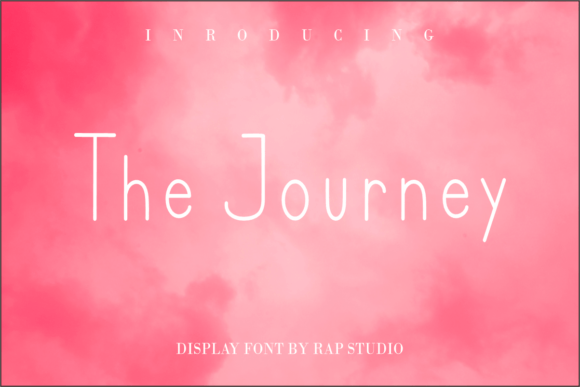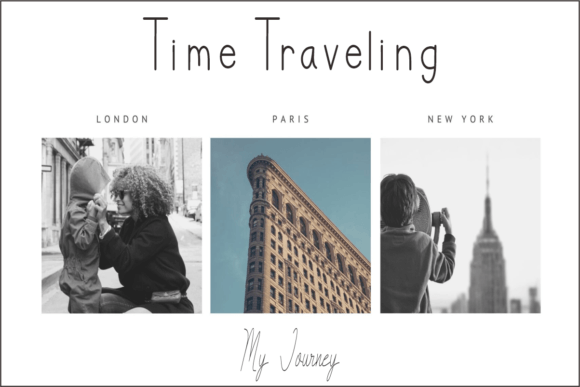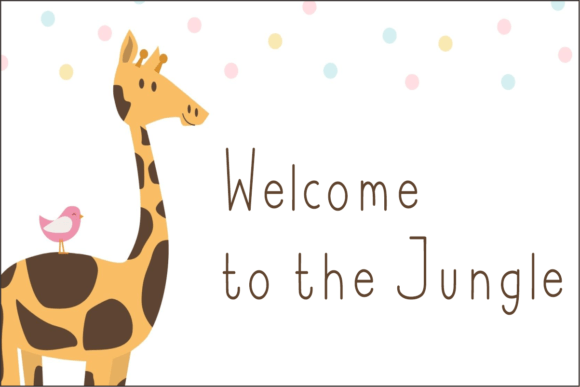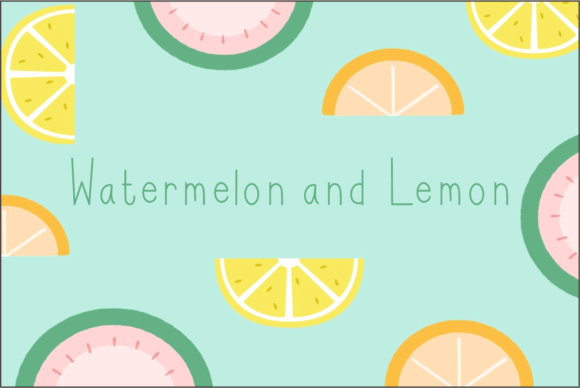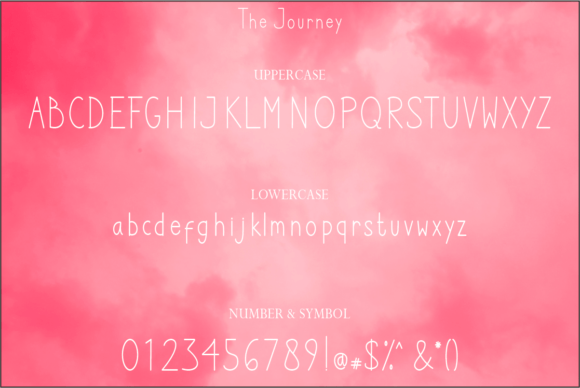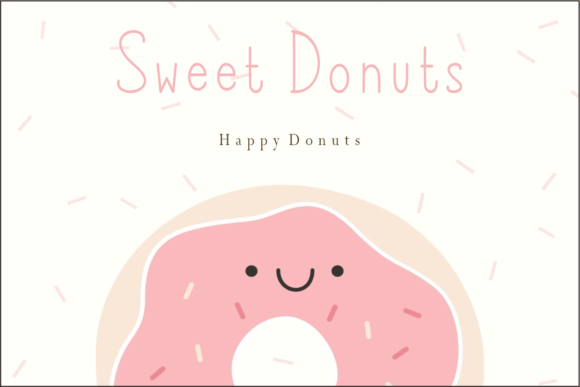
The Journey Font
About The Journey Font
**The Journey: Where Simplicity Meets Charm**
In the vast landscape of fonts, “The Journey” stands out as a delightful handwritten typeface, embodying an endearing simplicity that captures hearts effortlessly. Its casual charm makes it not just a font but a creative companion, adding a touch of approachability and warmth to any design project it graces. With its innate versatility and cute-looking style, “The Journey” transcends the ordinary, elevating every context it inhabits, from busy backgrounds to standalone titles, and enhancing a myriad of design endeavors.
**The Allure of Casual Charm:**
“The Journey” boasts an irresistible charm rooted in its casual demeanor. Its strokes are effortlessly crafted, exuding an air of simplicity that is both inviting and comforting. This font embodies an innate friendliness, making it approachable and relatable to viewers. Its easy readability ensures that your message is communicated effortlessly, creating an instant connection with the audience.
**Versatility Redefined:**
What sets “The Journey” apart is its exceptional versatility. This font seamlessly integrates into any context, enriching the visual experience whether it’s used in branding, headings, wedding designs, invitations, signatures, logos, labels, or more. Its adaptability allows it to harmonize with diverse design elements, making it a go-to choice for designers seeking a font that effortlessly complements their creative vision.
**A Cute Touch of Elegance:**
The cute-looking style of “The Journey” adds a delightful touch of elegance to every project it graces. Its innocence and charm evoke a sense of joy, making it ideal for designs aimed at capturing the heart. Whether it’s enhancing the charm of wedding invitations or bringing a playful sophistication to branding, this font infuses a sense of cuteness that resonates with a wide audience.
**Elevating Every Design Project:**
“The Journey” is more than just a font; it’s a design catalyst that elevates projects to new heights. Its ability to blend seamlessly into any context, combined with its adorable style, ensures that every design project it touches is imbued with a touch of magic. The font becomes a visual storyteller, adding depth and personality to your creations, making them memorable and endearing.
**Conclusion:**
“The Journey” is a testament to the power of simplicity and charm. Its casual allure and cute-looking style make it a font that speaks volumes with subtlety. By choosing “The Journey” for your design endeavors, you’re not just selecting a font; you’re embracing a creative spirit that enhances every project, transforming them into delightful experiences that captivate and charm. Let “The Journey” accompany you on your creative endeavors, and witness how its simplicity and versatility elevate your designs to new levels of beauty and appeal.